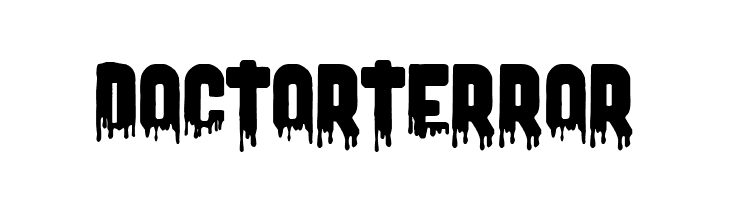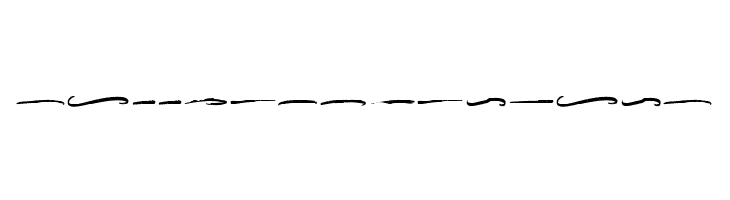
A bold, playful handwritten font with smooth curves and a casual vibe.
A playful, handwritten font with a whimsical and casual style.
A bold, dripping font perfect for horror or Halloween themes.
A playful and fluid handwritten font with a casual, connected style.
A bold, angular font with a dynamic, modern style.
A decorative font with elegant swashes and calligraphic flourishes.
A bold, textured script font with a dynamic, handcrafted feel.
An elegant script font with fluid, connected strokes and a sophisticated style.
A playful, spooky font with bold, irregular characters and a Halloween theme.
A bold, dripping font perfect for horror or Halloween themes.